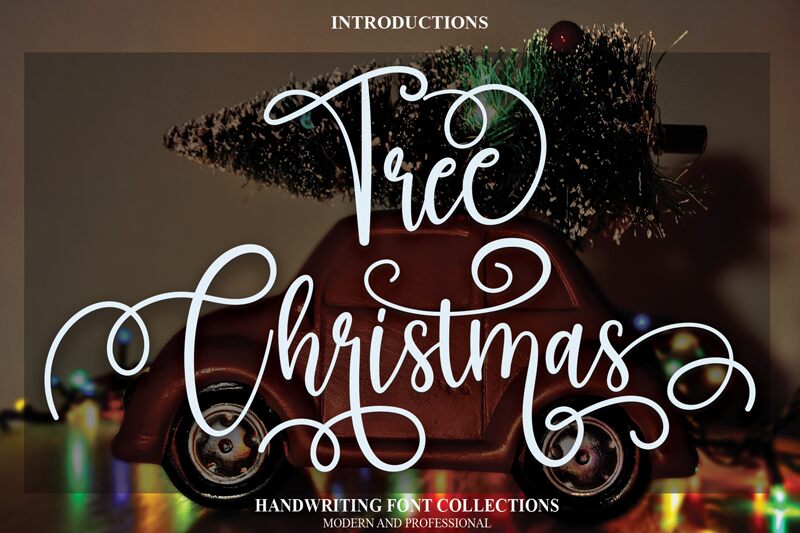
Tree Christmas
Tree Christmas, the new semi-light calligraphy font designed by scratchones, is perfect for adding a festive touch to your holiday projects. Its delicate strokes and elegant curves will give any design a touch of sophistication and warmth. Use it for greeting cards, invitations, menus, or any other project that needs a special holiday touch. With its unique style and versatile nature, Tree Christmas is suitable for both digital and print media. Let your creativity flow and bring the magic of the holidays to life with this stunning font!
the latest style letters are perfect for wall displays, wedding invitations, social media post logos, advertisements, product packaging, product designs, labels, photography, watermarks, invitations, stationery, and any project that requires taste handwriting.